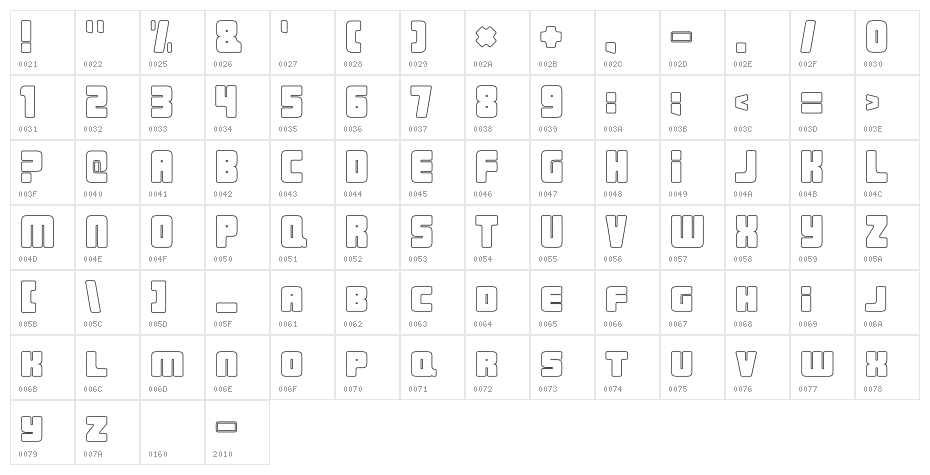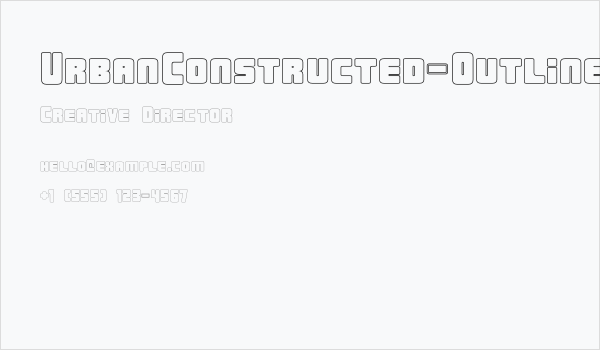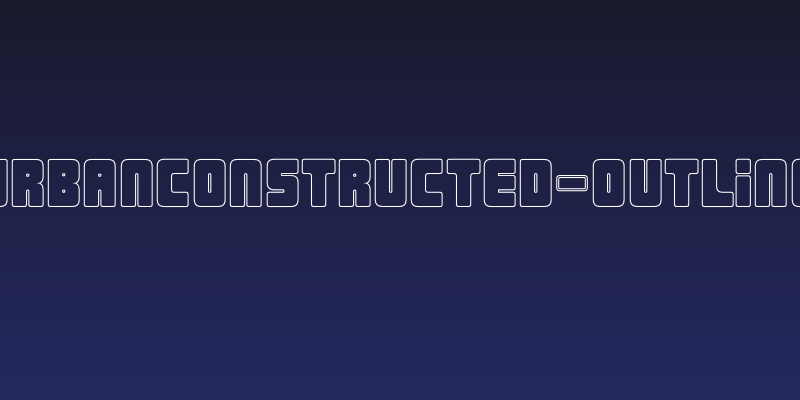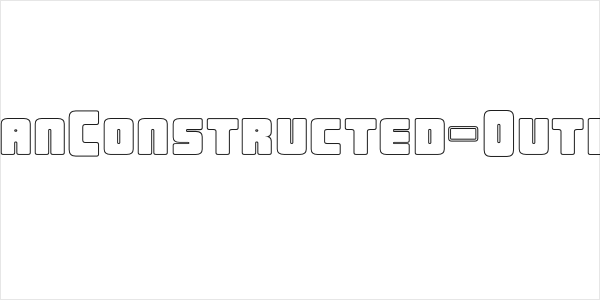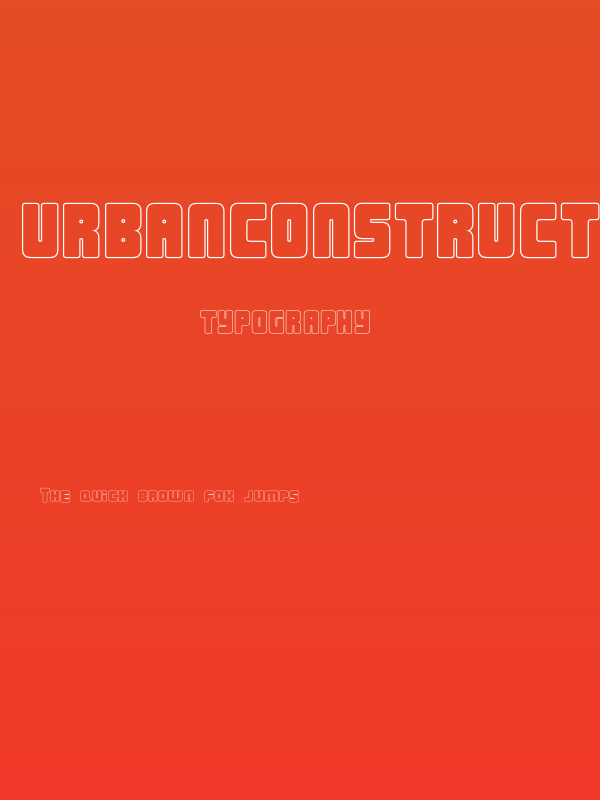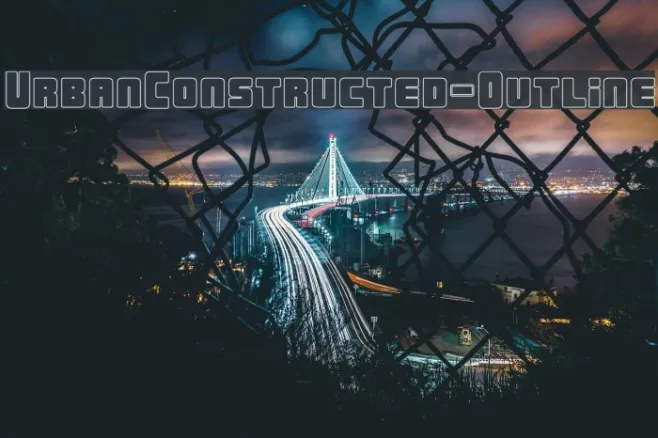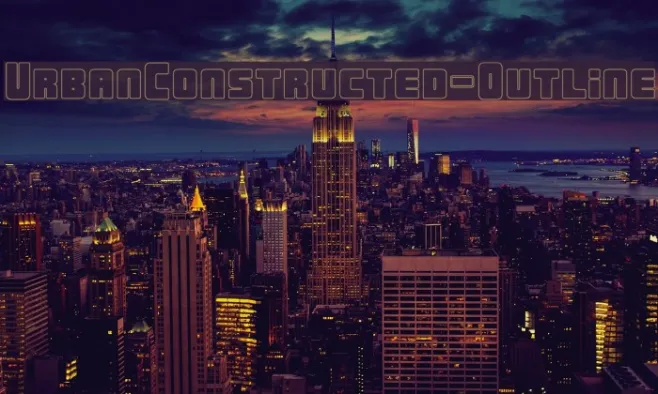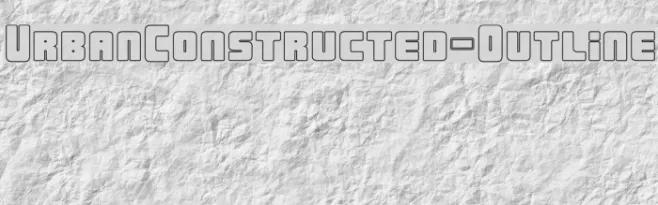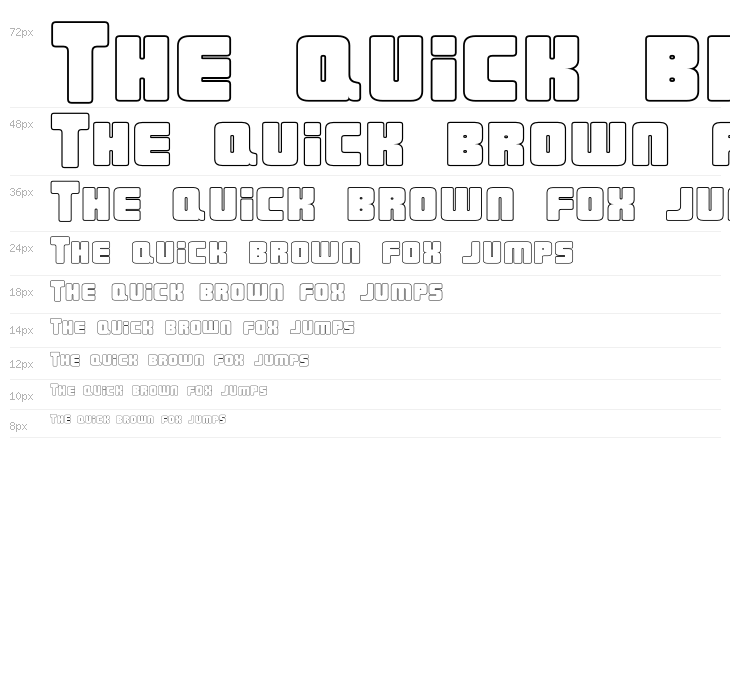
UrbanConstructed-Outline Font
UrbanConstructed-Outline Description
This font features a bold, geometric design with a distinct outline style. Each character is constructed with thick, uniform lines that create a strong visual impact. The letters are blocky and angular, giving them a modern and industrial feel. The outline adds an extra layer of depth, making the characters stand out against any background. This font is highly legible, with clear distinctions between each letter and number, making it suitable for various design applications. The consistent thickness of the lines throughout the font ensures a cohesive look, while the unique outline style adds a touch of creativity and flair.
| Proposed Projects | Ideal for urban-themed posters, modern branding, architectural designs, and eye-catching headlines. |
urban
constructed
is
font
nils
von
blanc
(www.nils-von-blanc.de).
nils
was
inspired
by
"nonstop"
jakob
fischer
pizzadude (http://www.pizzadude.dk).